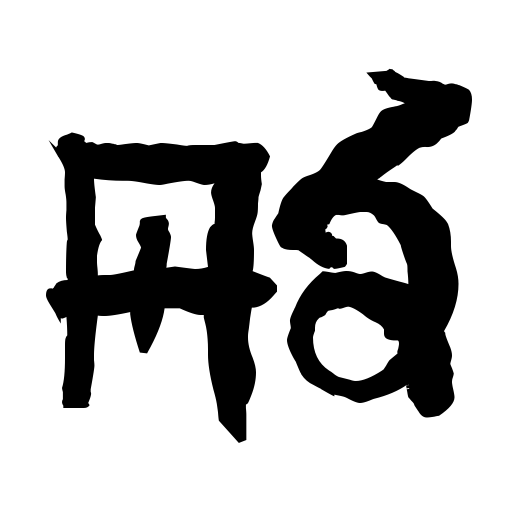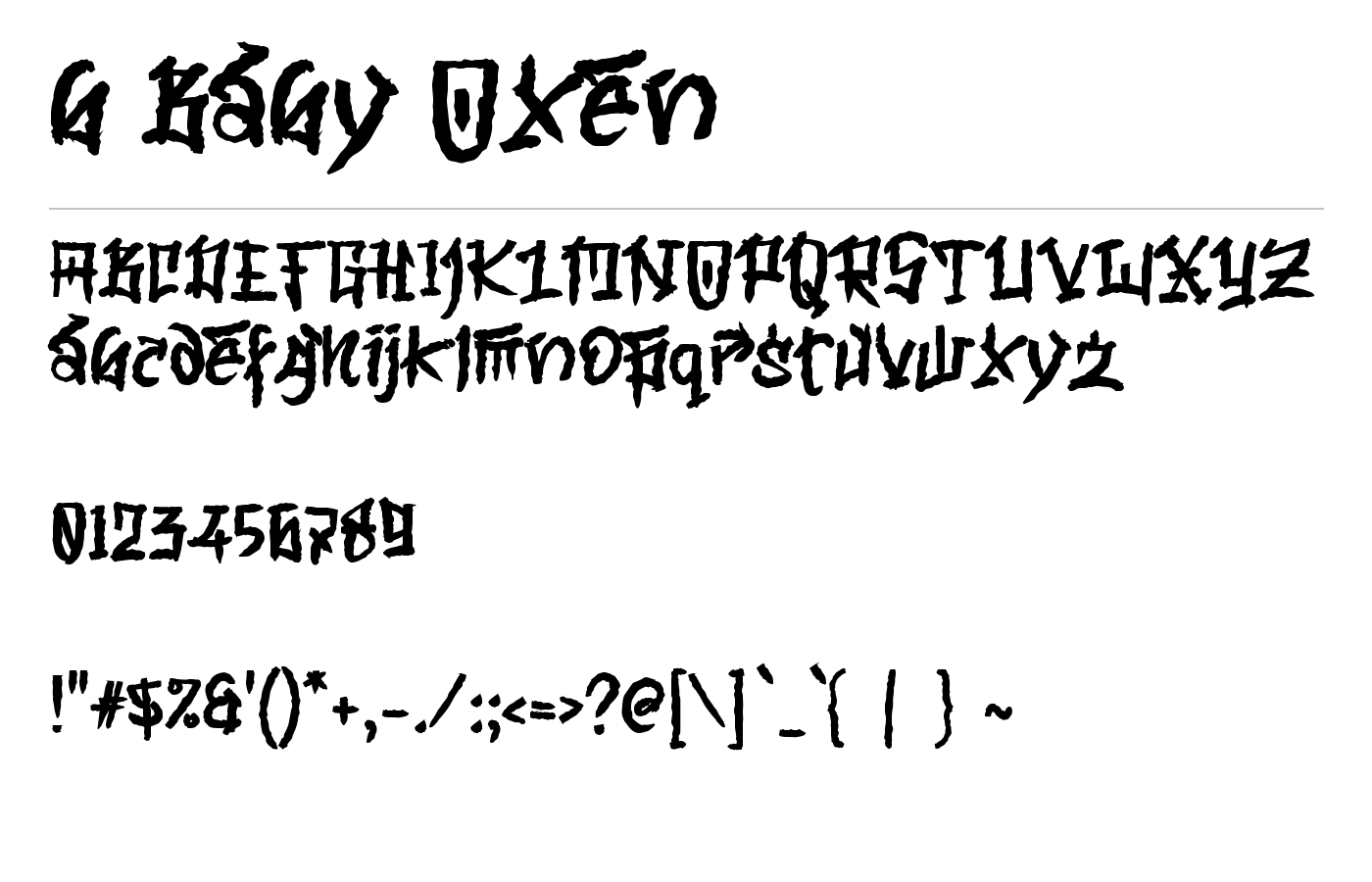
Baby Oxen is a bold, hand-drawn display font with a rough, brushstroke texture that gives it an edgy, urban feel. Its irregular, artistic letterforms and tight spacing make it ideal for creative projects like posters, logos, and headlines where a strong, dynamic personality is desired. This font works well for brands and designs that aim to stand out with a raw, expressive style.
b Baby Oxen Font